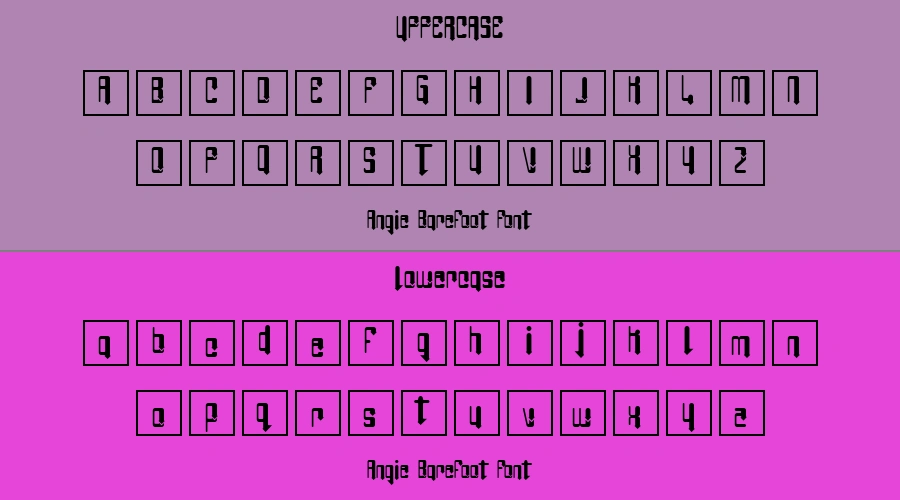
About Angie Barefoot Font
When typographic excellence matters most, Angie Barefoot Font delivers through its thoughtful blend of distinctive terminals and precision. Specially crafted for legal documents, it offers the functionality and cultural resonance required for sophisticated design work. Every detail serves a purpose.
The character set showcases thoughtful details like precise joints alongside functional beginning forms. This proves especially valuable in traditional announcements, where detail preservation directly influences results. Particular attention was paid to counter shape and character during development.